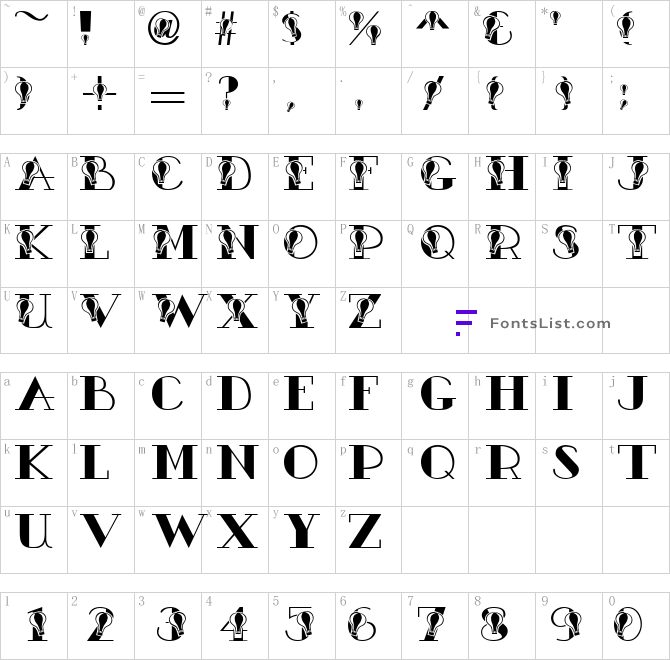
- Font Name:AC4-HotAirBalloon
AC4-HotAirBalloon.ttf is a very beautiful artistic font, AC4-HotAirBalloon.ttf is widely used in the design and printing of various books and pictures,AC4-HotAirBalloon.ttf has a strong visual impact,AC4-HotAirBalloon.ttf is a commonly used font in newspapers, magazines and books, and is used in posters, e-commerce Poster design, store design, logo design, font design and other fields.AC4-HotAirBalloon.